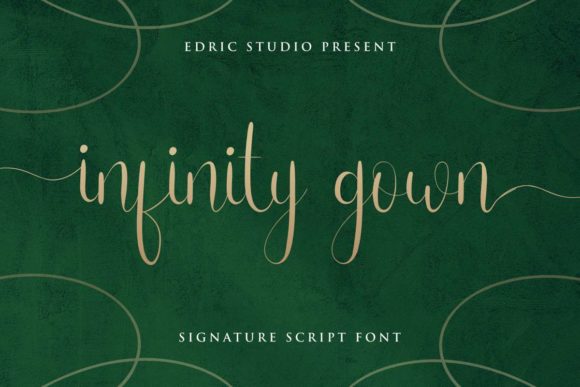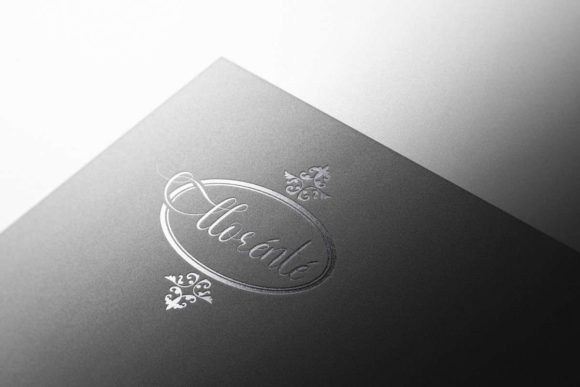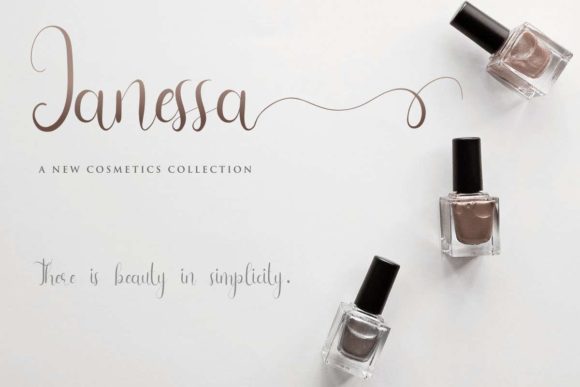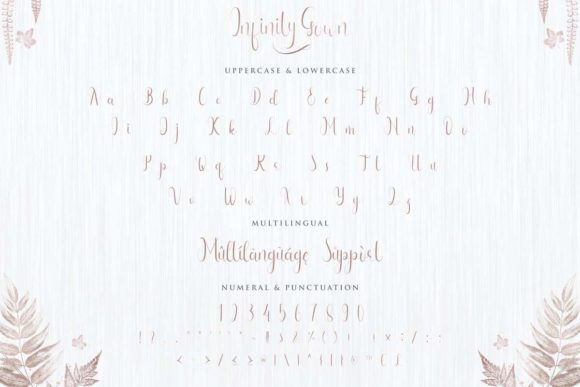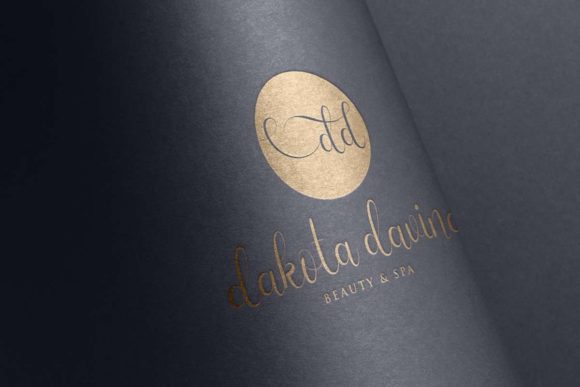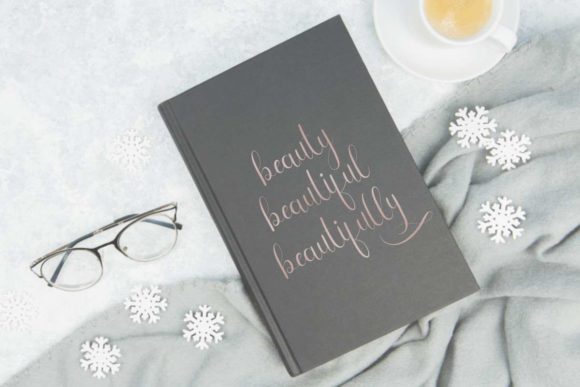
Introduction to Infinity Gown Font
As a designer, there’s nothing quite like the thrill of finding the perfect font to elevate your creative project. You’re staring at a blank canvas, trying to bring your vision to life, and then – like a ray of sunshine – you stumble upon the perfect font. For me, that moment came when I discovered the Infinity Gown Font. This stunning handwritten font is a game-changer, and I’m excited to share its charms with you.
With its elegant, flowing lines and gorgeous glyphs, the Infinity Gown Font is the perfect addition to any design project. Whether you’re working on a wedding invitation, a branding campaign, or a simple social media graphic, this font will add a touch of sophistication and class. And the best part? It’s a free download, making it an invaluable resource for designers of all levels.
Key Features of Infinity Gown Font
- Unique, elegant design perfect for creative projects, wedding invitations, and other special occasions.
- Includes a transparent background, allowing for easy customization and integration with various design elements.
- Perfect for designers seeking a high-quality, free design resource for their next creative project.
Honest Review: Infinity Gown Font
I recently came across the Infinity Gown Font while searching for a high-quality design resource for a creative project. As a designer, I was excited to dive in and see what this font had to offer.
- ✨ High quality and crisp typography that makes it perfect for fashion and beauty designs.
- ✨ The transparent background feature allows for seamless integration with any design element.
- ⚠️ Limited customization options, which may not be ideal for designers who prefer a more personalized approach.
- ⚠️ The font may not be suitable for projects that require a wide range of font styles or variations.
Overall, the Infinity Gown Font is a solid choice for designers looking for a high-quality, easy-to-use font. While it may have some limitations, its strengths make it a great addition to any design resource library.
The Infinity Gown Font is a unique and versatile design resource that can add an extra touch to your creative projects. This high-quality font features a transparent background, making it perfect for overlaying on images or using as a standalone design element.
To get the most out of the Infinity Gown Font, experiment with different font sizes, colors, and layering techniques. You can also combine it with other design elements, such as images or shapes, to create unique and eye-catching designs.
The Infinity Gown Font is perfect for:
- Social media graphics and promotional materials
- Party decorations and signage
With its versatility and high-quality design, the Infinity Gown Font is a valuable addition to any designer’s toolkit.